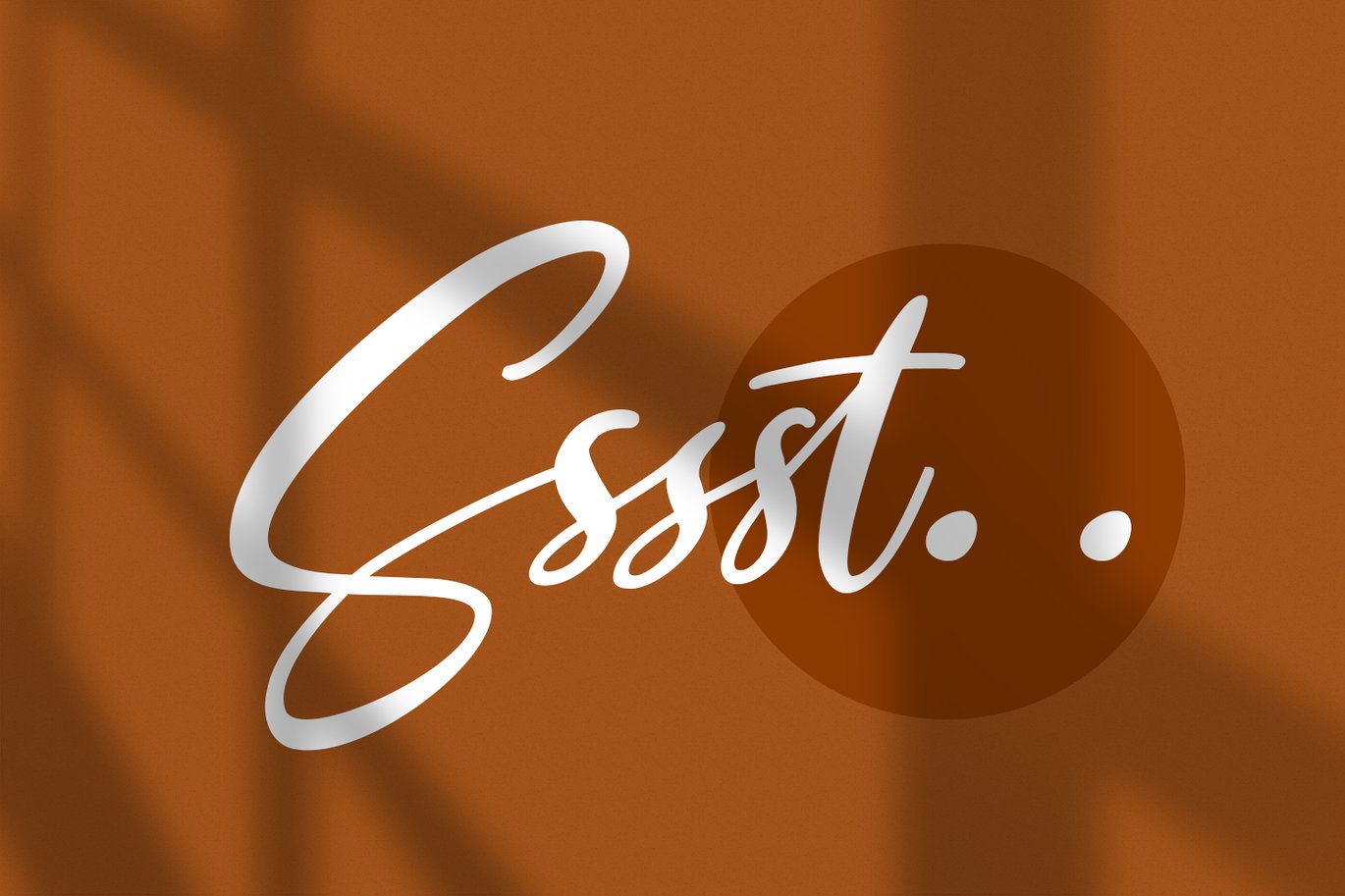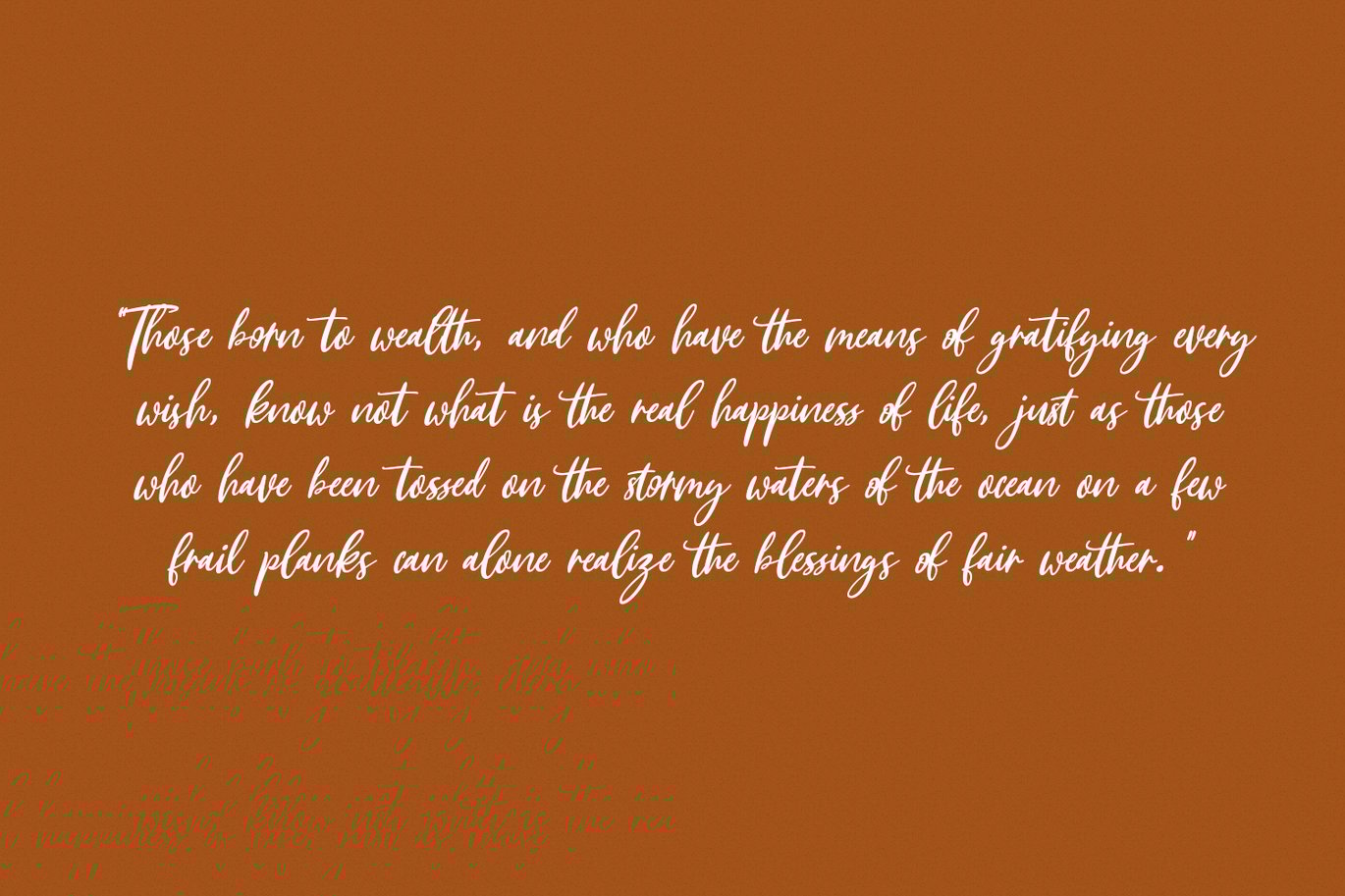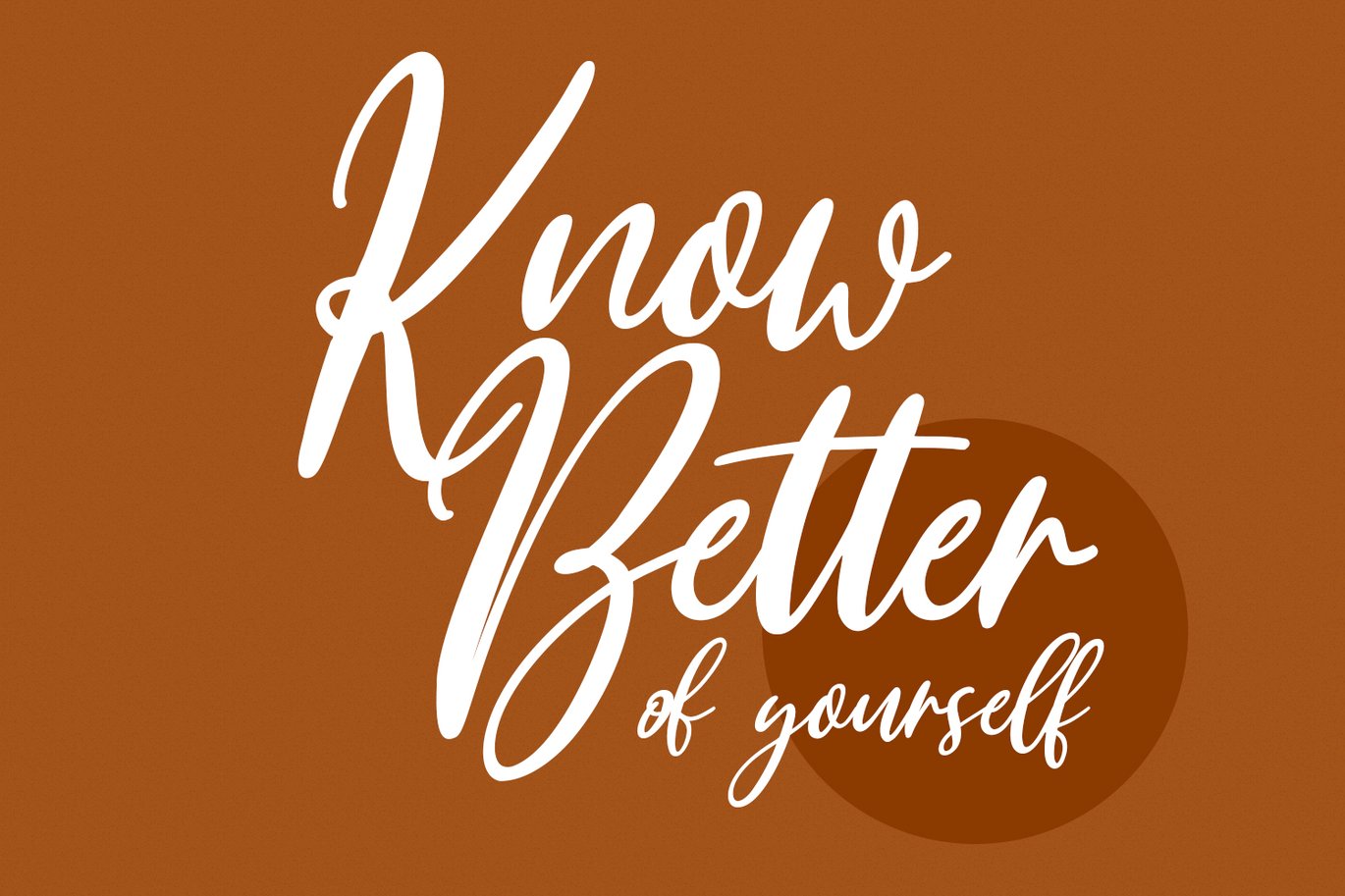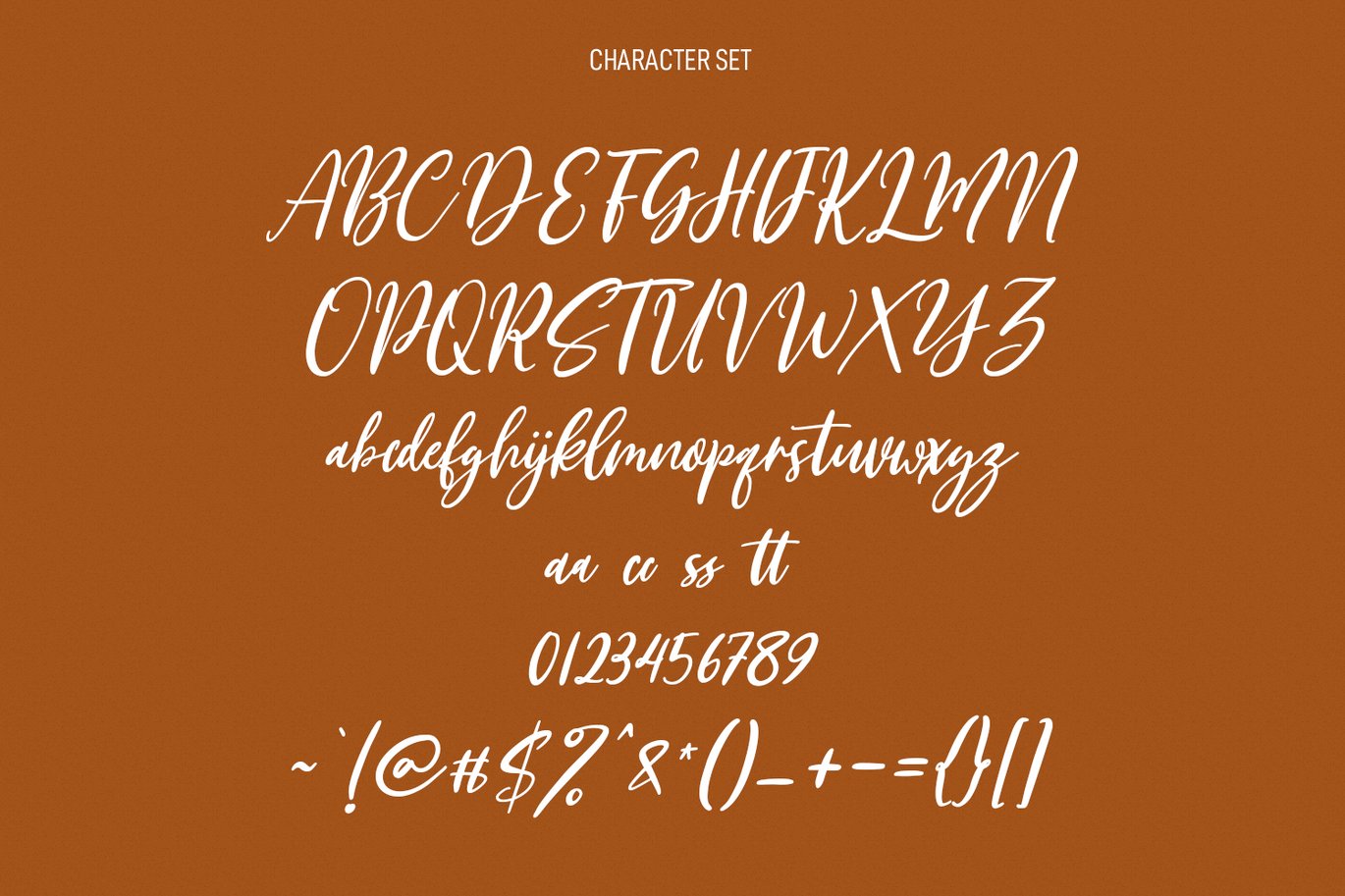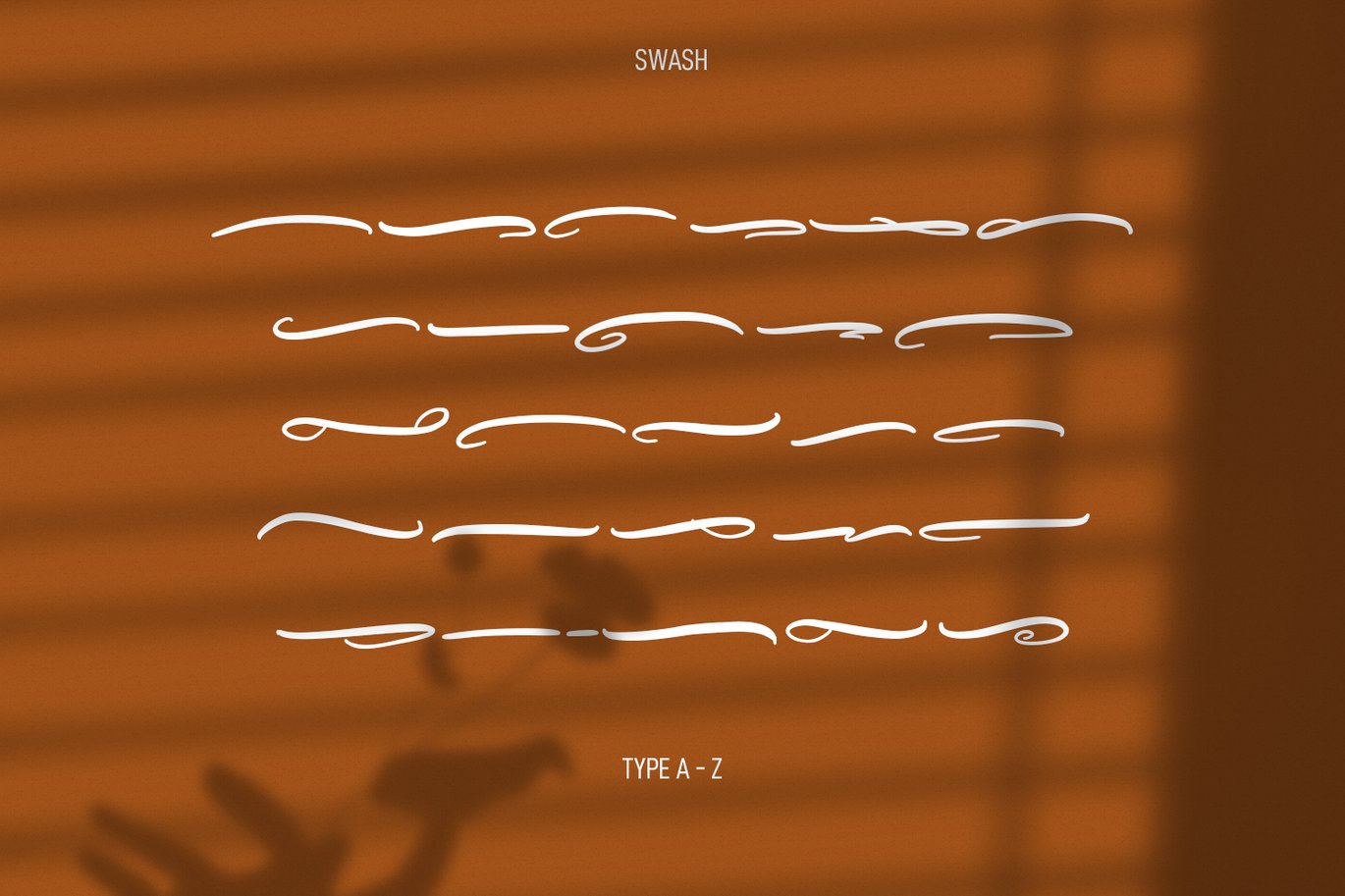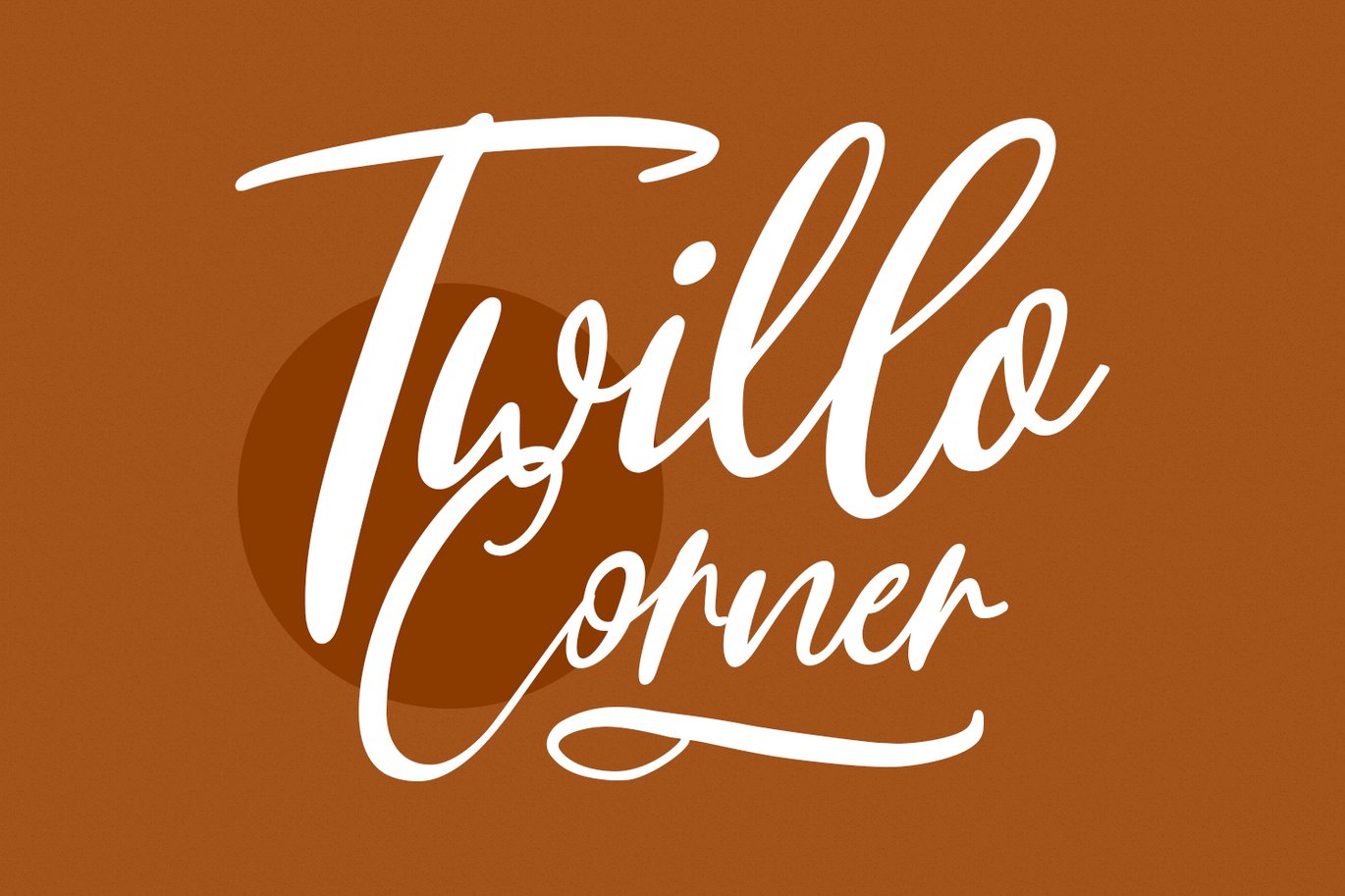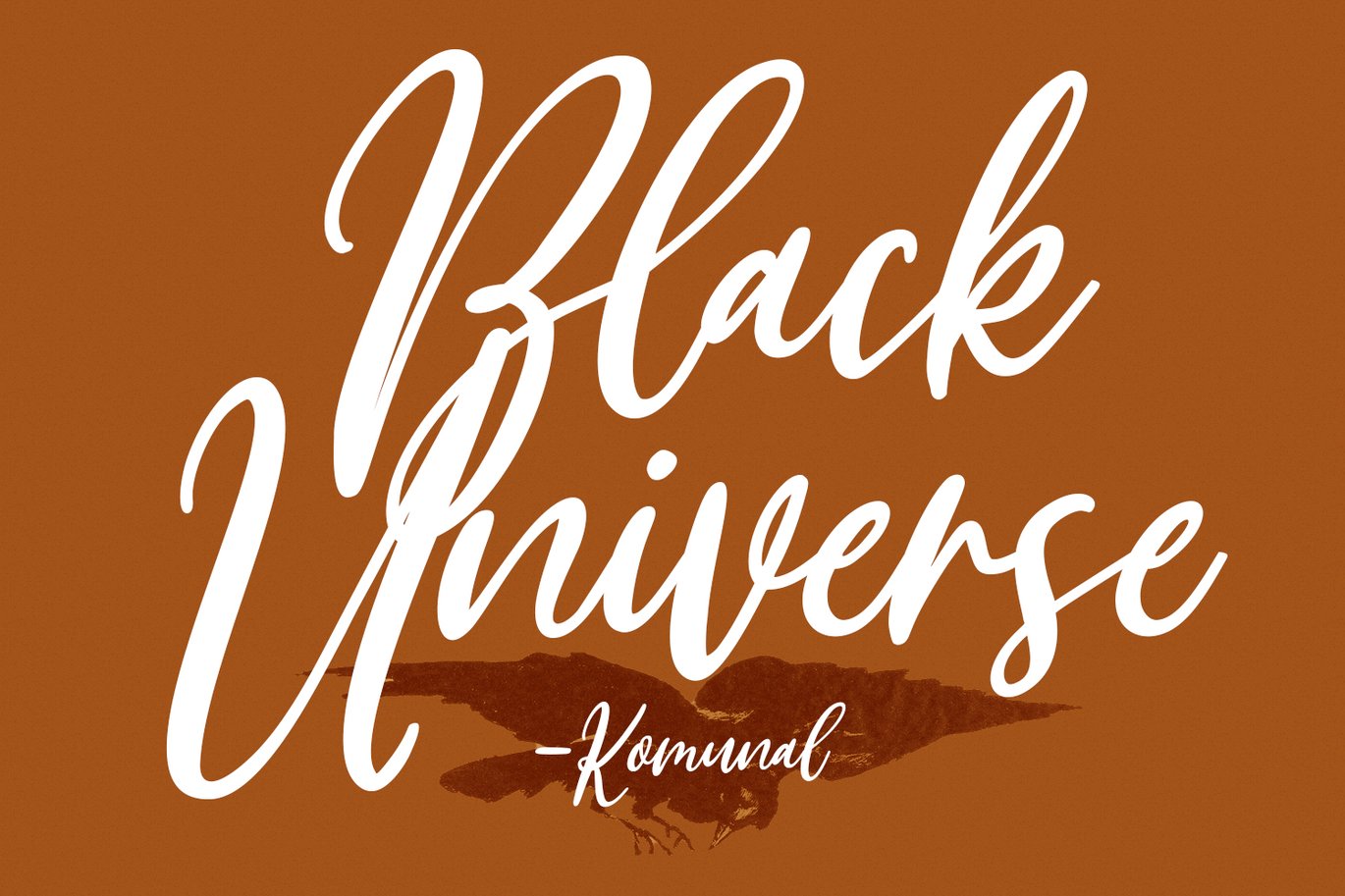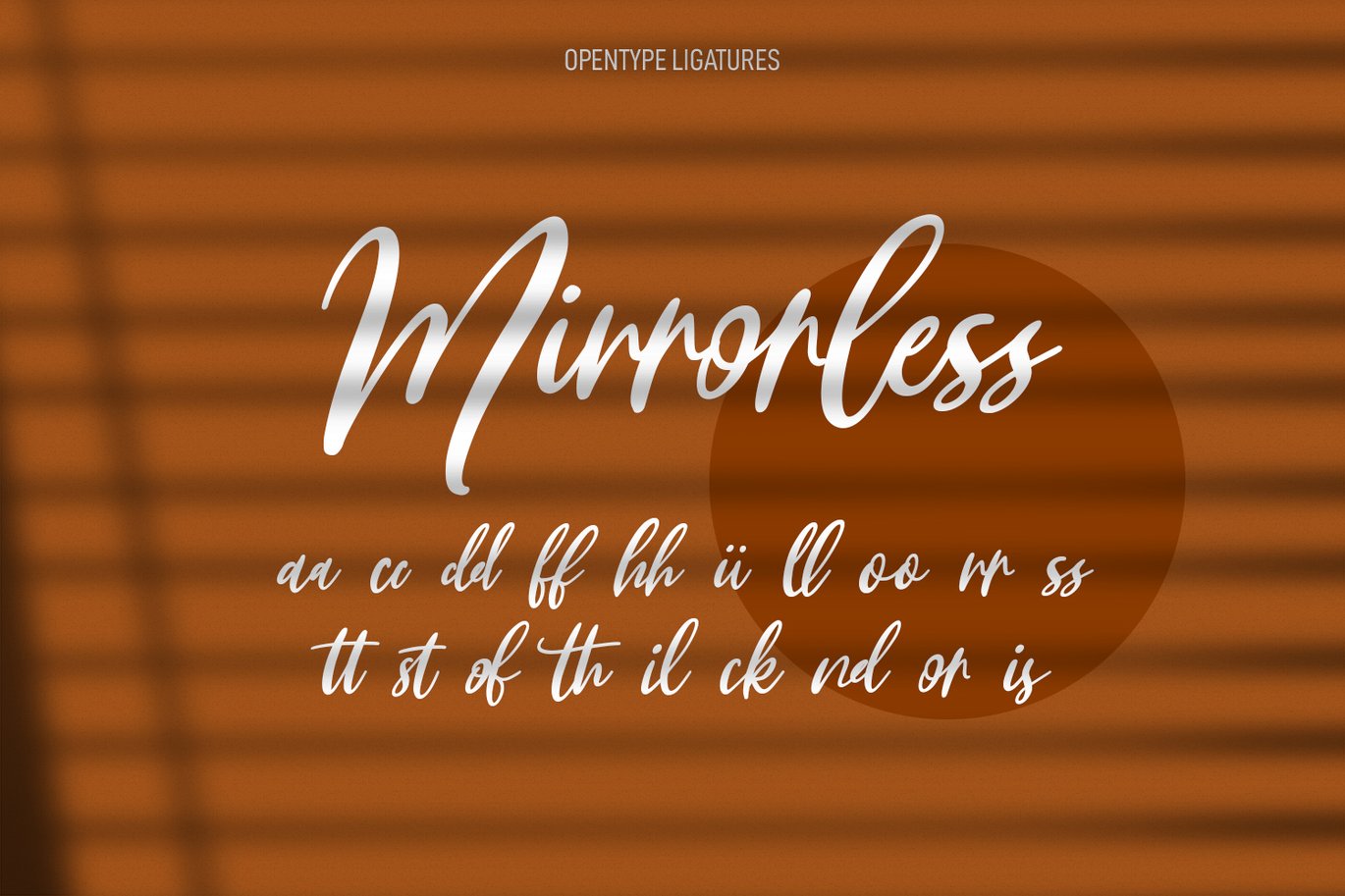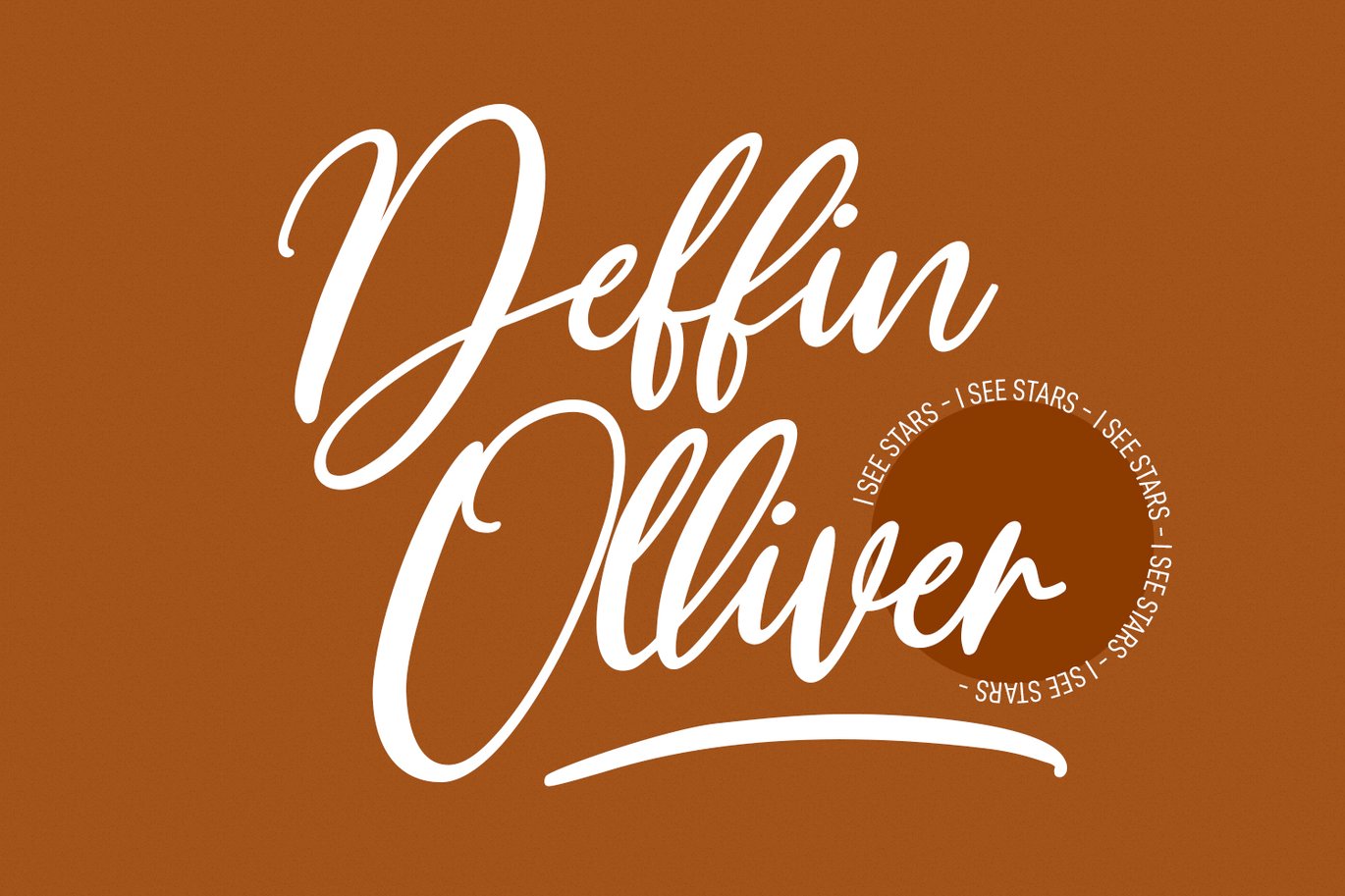
Dearlovers Feminine Script Font
Dearlovers is a modern feminine script font. With regular contrast stroke, fun character with some of ligatures. To give you an extra creative work. Dearlovers font support multilingual more than 100+ language. This font is good for logo design, Social media, Movie Titles, Books Titles, a short text even a long text letter and good for your secondary text font with sans or serif. Make a stunning work with Dearlovers font.
MaulanaCreative